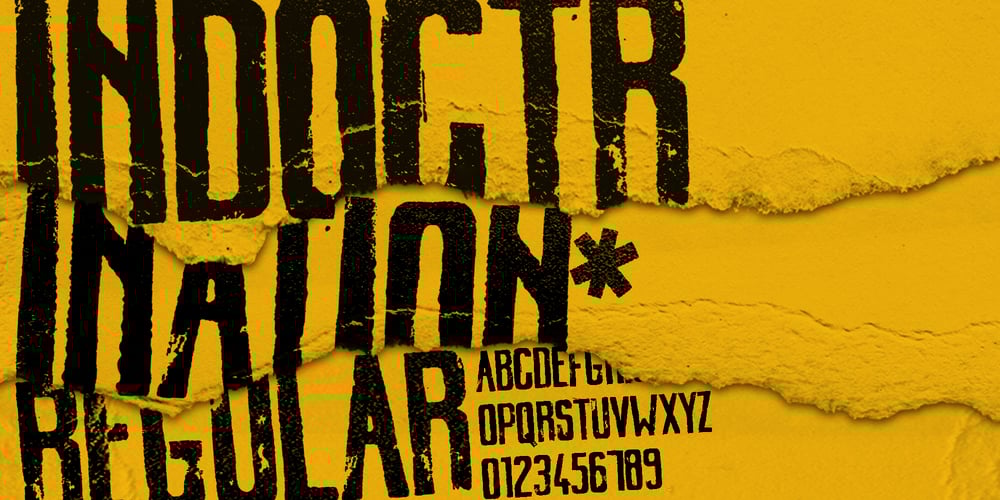
Indoctrination Font Family was designed by Mina Radovic and published by MinaType. Indoctrination contains 1 styles and family package options. Indoctrination Font is a unique handcrafted stamp font that brings a touch of authentic, artistic craftsmanship to your projects. Each letter of Indoctrination Font is drawn by hand on individual pieces of linoleum. These letters are then cut out and stamped onto textured paper, capturing the raw, tactile essence of hand-stamped art. This process is followed by scanning each letter and importing them into a digital format, ensuring that every character retains its original handcrafted charm. Indoctrination Font is perfect for a variety of applications, from eye-catching posters and titles to labels. The font includes a basic symbol set, and each symbol boasts between 2 to 7 unique alternations, giving you the creative flexibility to add variety and a personal touch to your designs. Additionally, Indoctrination supports Cyrillic script, broadening its usability and appeal. With a total of 853 characters, Indoctrination offers extensive typographic options to enhance your creative projects. Whether you’re aiming for a bold, rustic aesthetic or a subtle, artisanal feel, Indoctrination’s authentic stamp texture and versatile design will elevate your work, making a powerful visual impact.